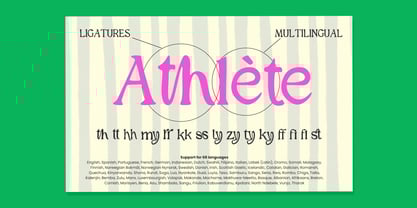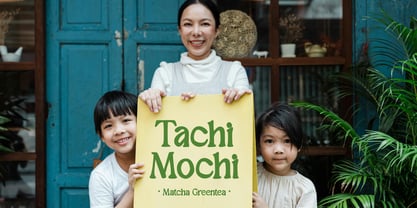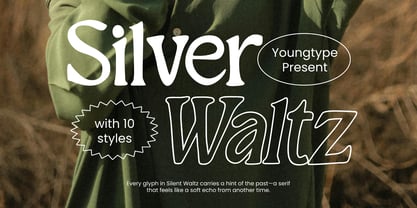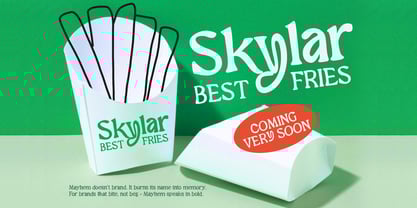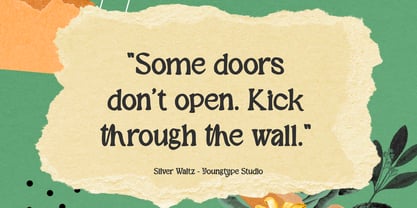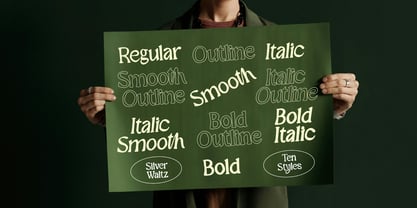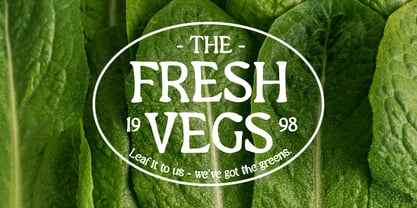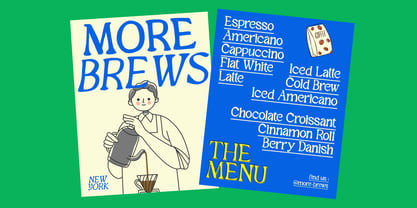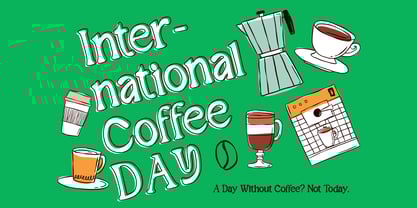
Silver Waltz
The Silver Waltz Font Family was designed by Naufal Paramata and published by Youngtype. Silver Waltz contains 10 styles and family package options.
Silver Waltz is a charming serif typeface presented by Youngtype, designed with a nostalgic touch that evokes the elegance of a bygone era. With 10 distinctive styles, this font combines smooth curves and refined serifs to create a sense of vintage sophistication. Each glyph in Silver Waltz carries a subtle historical echo, making it perfect for editorial design, branding, packaging, or any project that seeks to blend classical beauty with modern versatility.
Contains full set :
• Uppercase
• Lowercase
• Ligatures
• Alternates
• Punctuation
• number
• multilingual support.